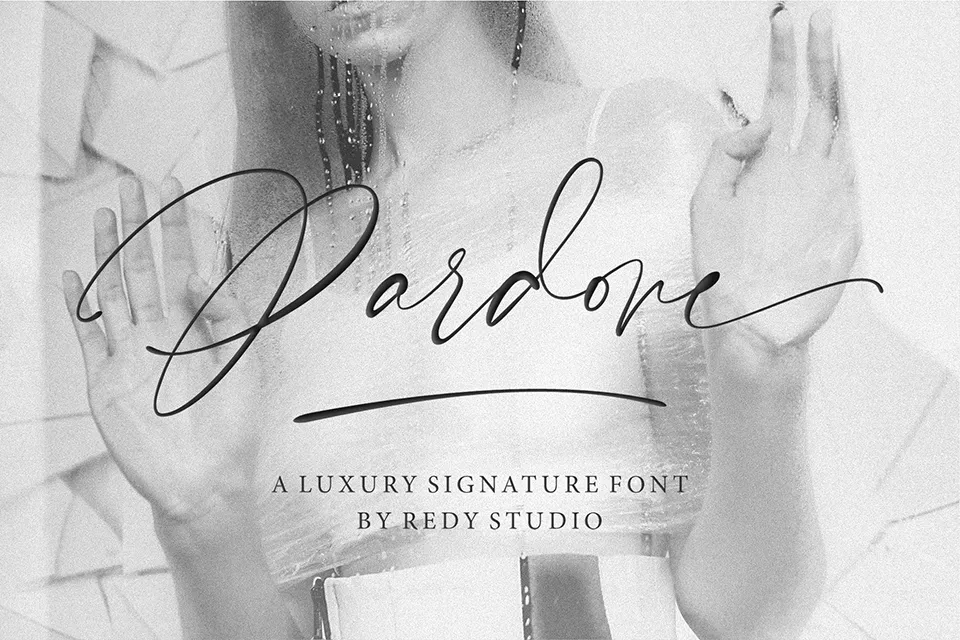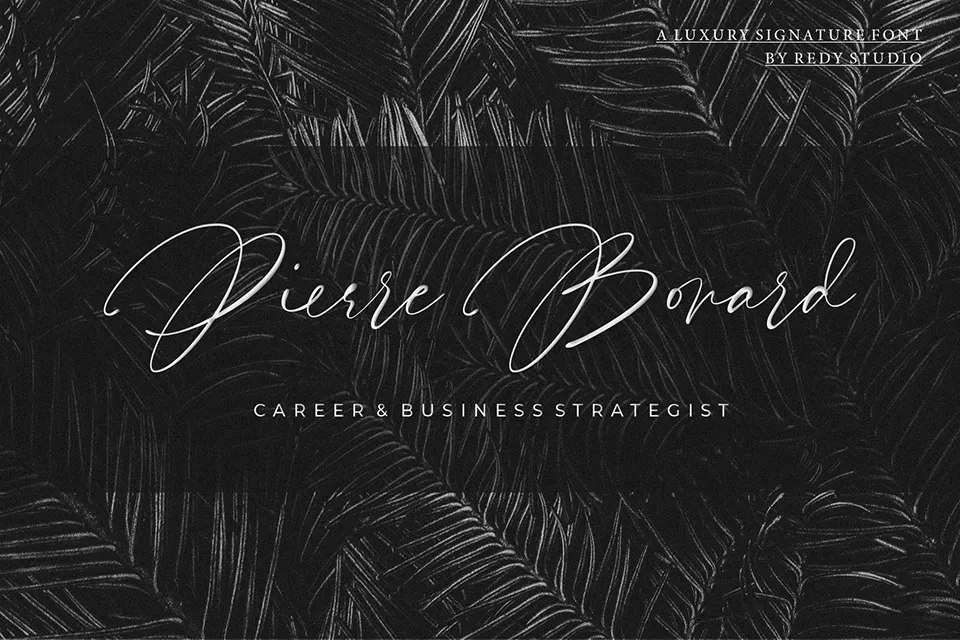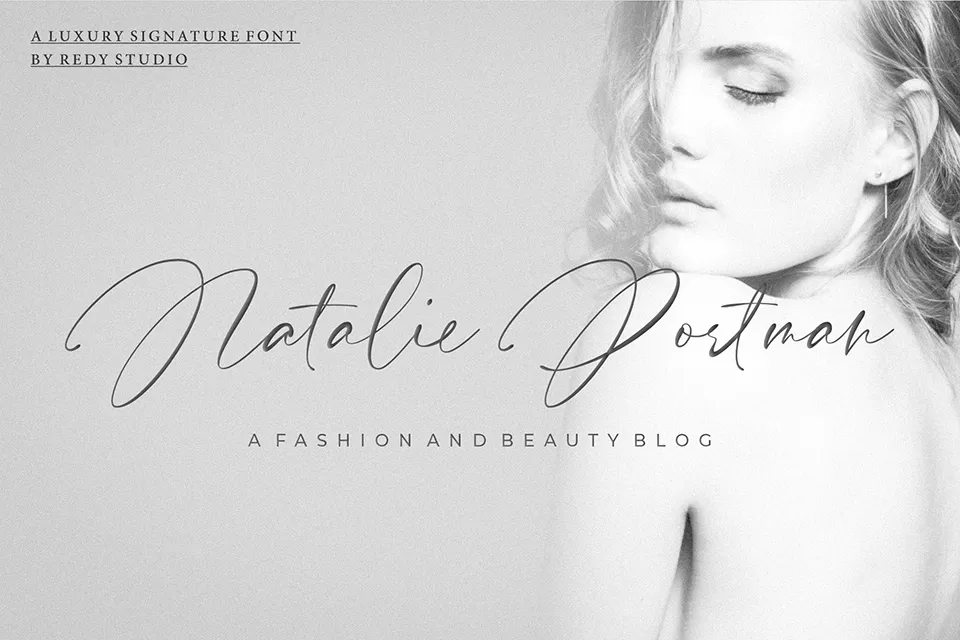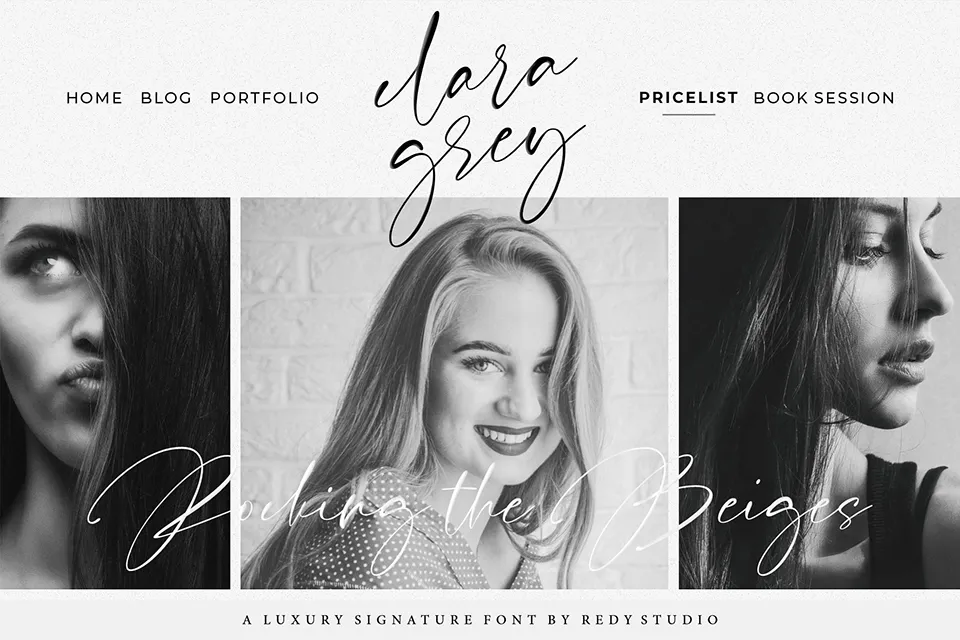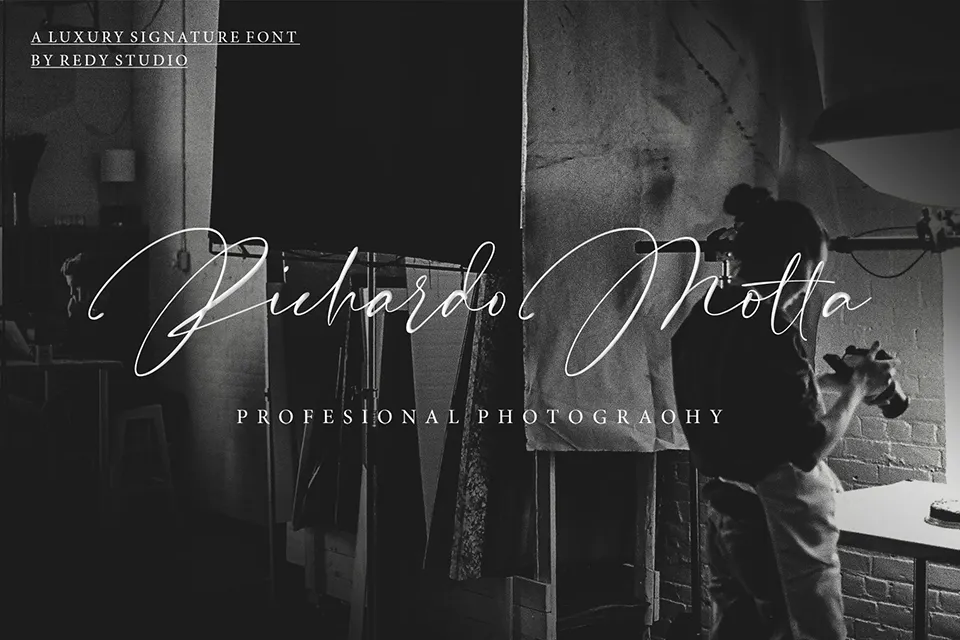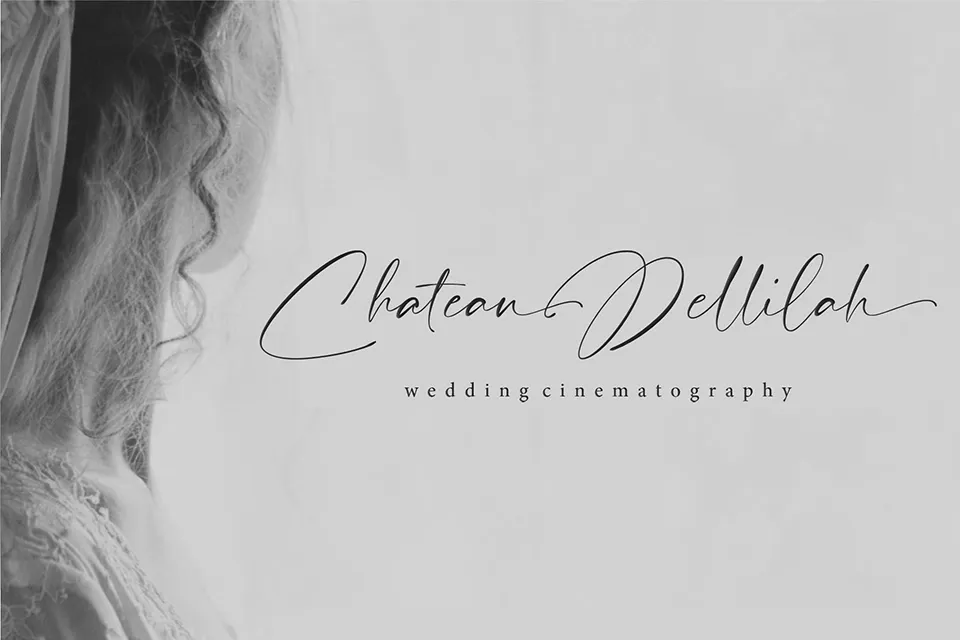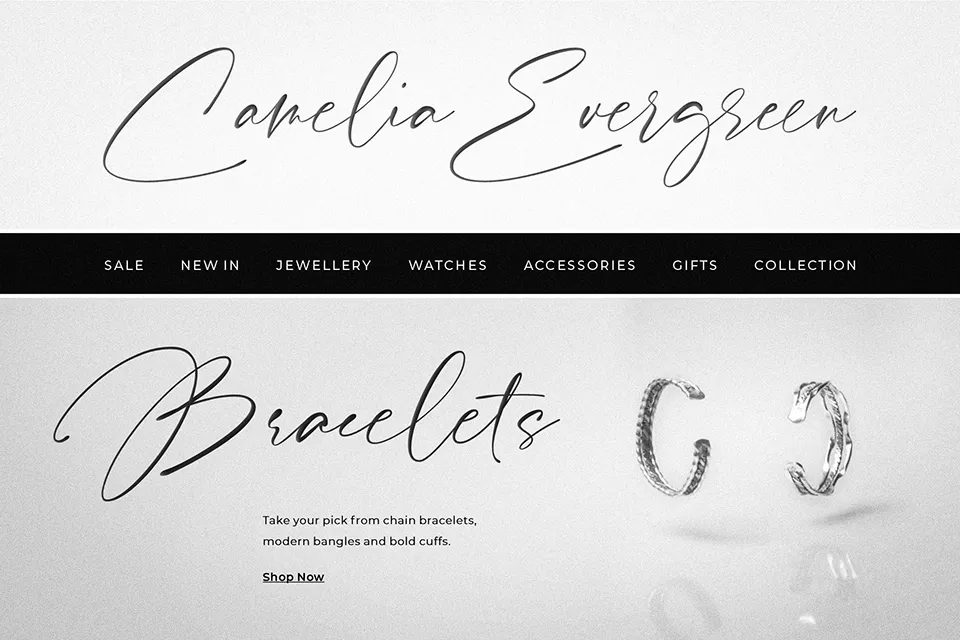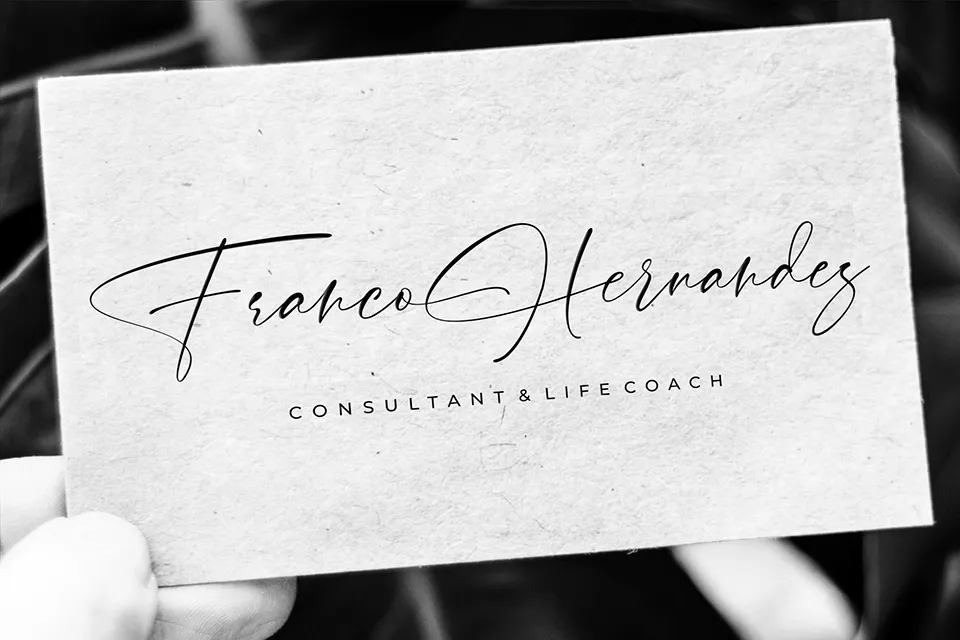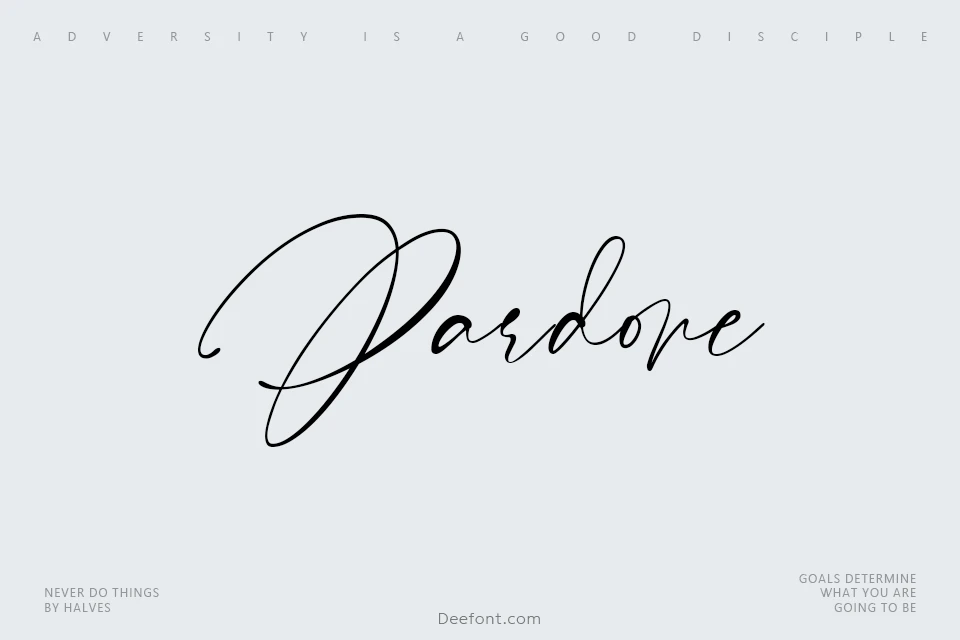
Pardone Font
Pardone, designed by Redy Studio, is presented as a luxury signature font. It features an elegant and flowing script style characterized by thin, monoline strokes and graceful curves. The font mimics sophisticated handwriting, complete with large, expressive capital letters and extended, sweeping tails on lowercase characters, contributing to its luxurious feel. Its smooth connections and airy spacing create a refined and personal aesthetic. Pardone is well-suited for high-end branding, logos, invitations, signatures, and any design project aiming for an air of exclusivity and personal elegance.